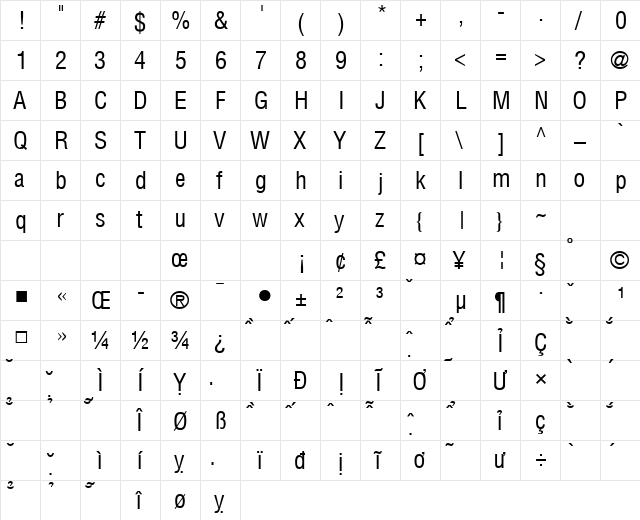
VNI Helve Condense Regular Font Preview
VNI Helve Condense Regular
Design Context for VNI Helve Condense Typeface
VNI Helve Condense offers clean, dependable letterforms without strong stylistic allegiance, making it a practical choice for designers who need flexibility. Its narrow stance lets it pack a punch even in space-constrained designs.